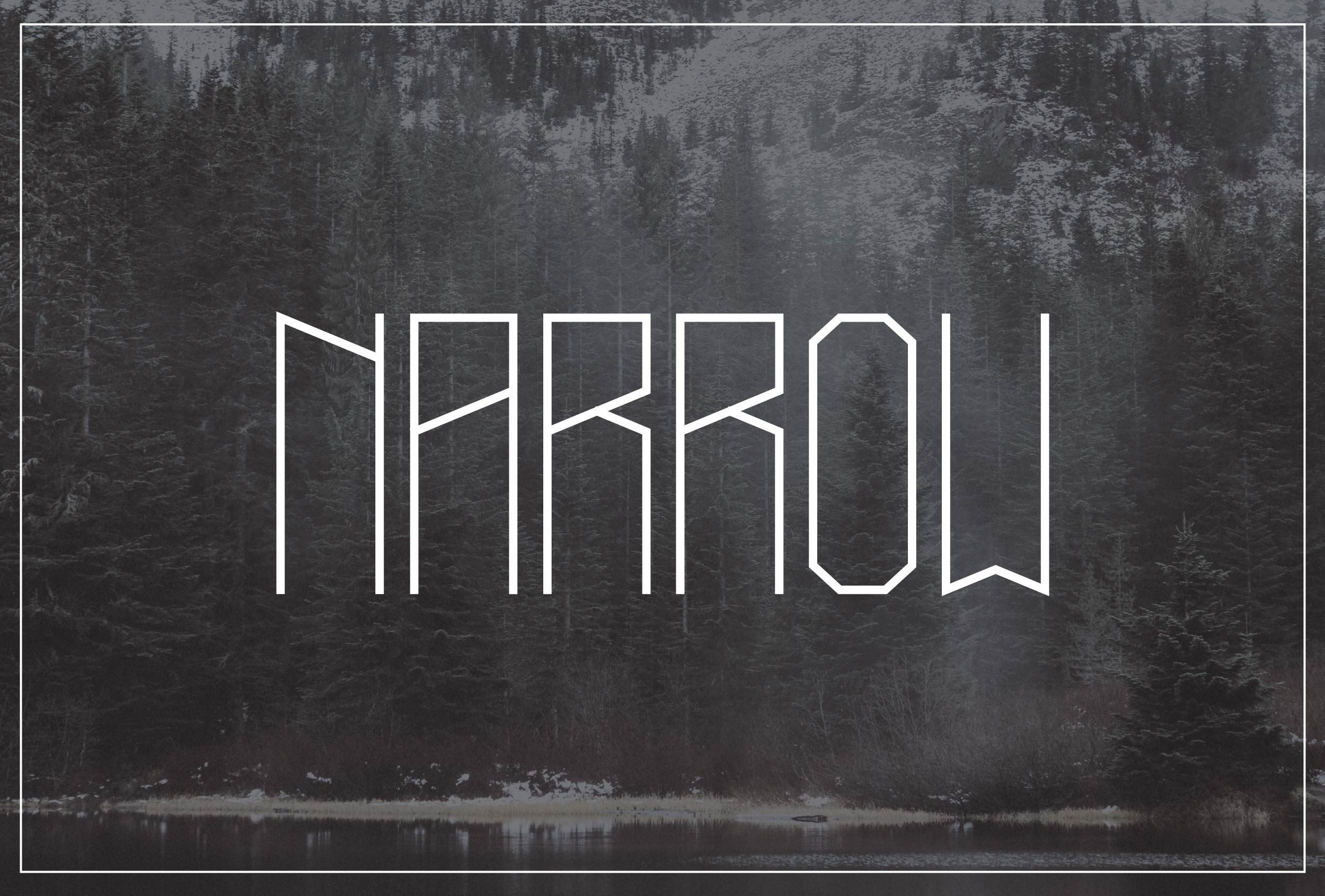
Narrow typeface, 4 weights + styles
This is a very thin and tall font that is available in Light, Regular, Bold, and Heavy, with an italics version of each. There is also an all caps option (which includes the caps letters at smaller sizes for lowercase) included for each style. Numbers and basic symbols are also included in each style.
In all, there are 16 ways to utilize this font.